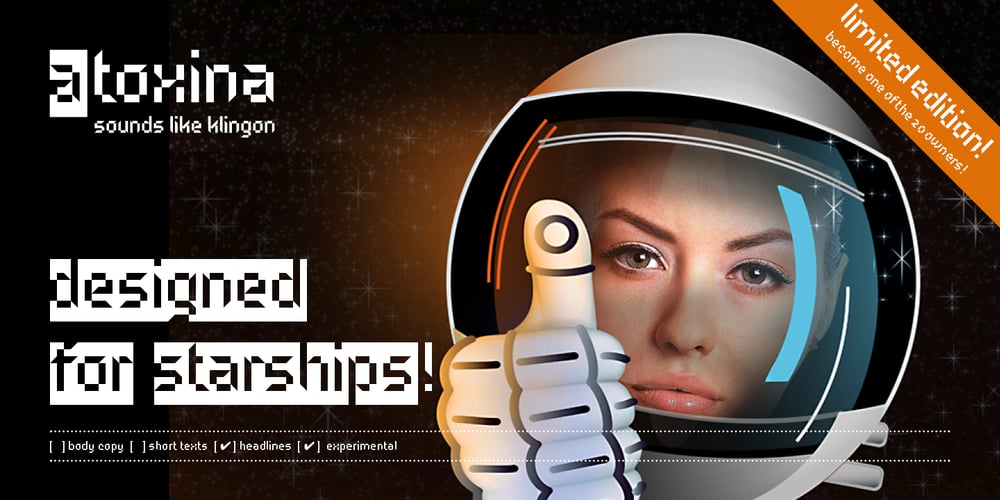
Atoxina Font Family was designed by Filippo Salmina and published by FSdesign-Salmina. Atoxina contains 1 styles and family package options. The Atoxina family is designed especially for the burgeoning market of starships and other space cruisers. The fonts are ideal for internal and external use (including zero-g and occasional bursts of cosmic rays), and with their simplified forms are expected to survive well in non-linear galaxies. With their unusual diagonal half-pixels the fonts are striking as abstract designs at astronomical sizes, where small text may be placed within the black holes formed inside the letters. The typeface is available in two different styles: Atoxina (regular) and Btoxina (italic).